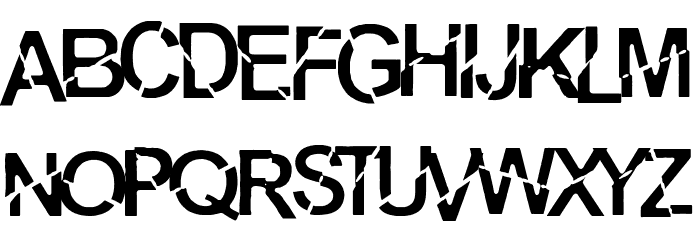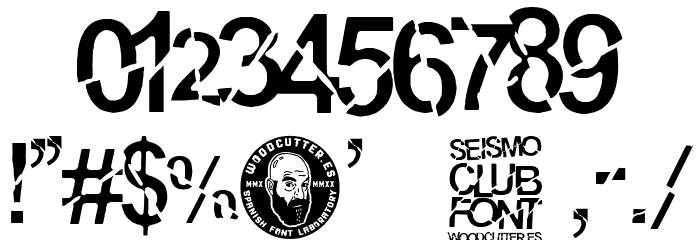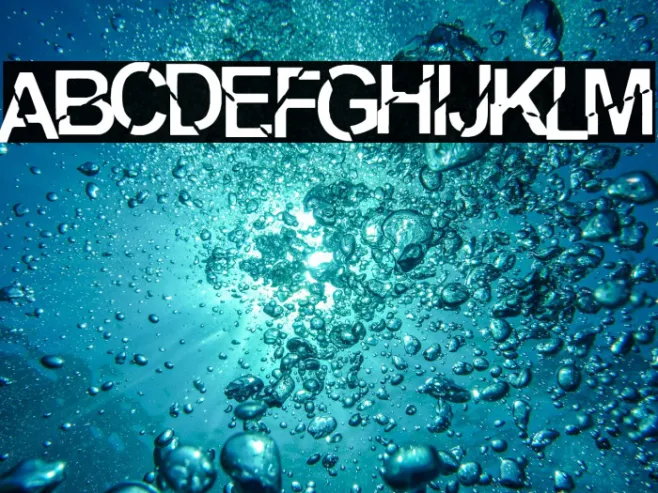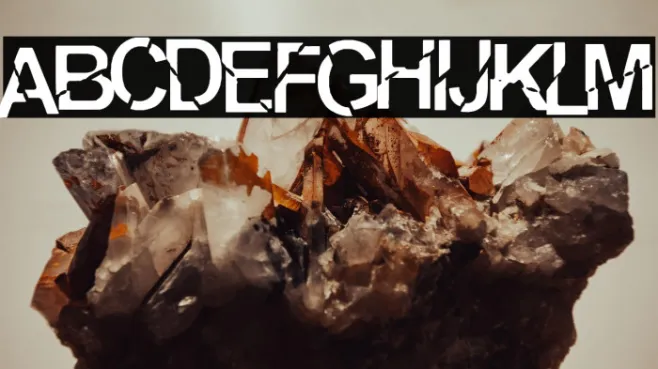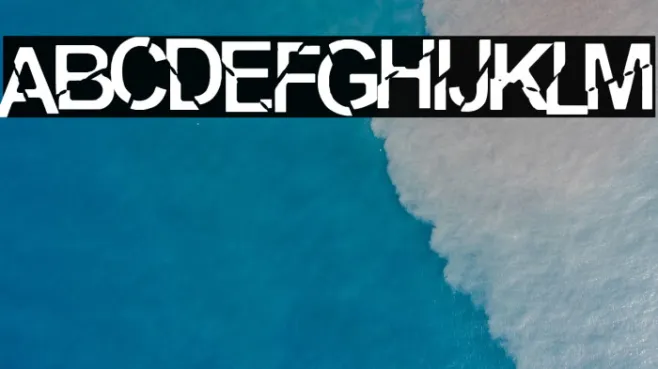
Seismo Club Font
This font features a bold and striking design with a unique, fragmented appearance. The characters are constructed with sharp, angular cuts that give the impression of being shattered or broken, creating a dynamic and edgy look. The uppercase and lowercase letters maintain a consistent style, with each character exhibiting a distinct geometric form. The numbers and special characters follow the same design principles, ensuring uniformity across the font. This font is ideal for projects that require a modern and unconventional aesthetic, making it suitable for attention-grabbing headlines or artistic designs.
A bold, fragmented font with sharp, angular cuts for a dynamic and edgy look.
- Font: Seismo Club
- Proposed Projects: Ideal for album covers, posters, branding, and any project needing a modern, edgy aesthetic.